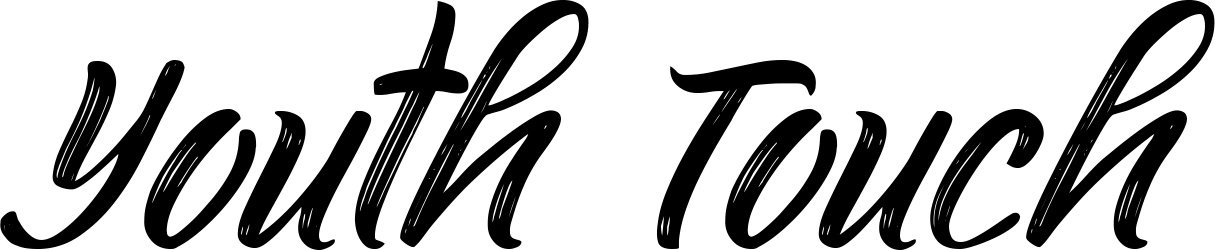
Youth Touch Font
Are you looking for a marker font for your typography designs? If so, you better take a look at Youth Touch right now. This font with long letters gives an energetic vibe. Apply it to your music or dance posters, invitat…
Are you looking for a marker font for your typography designs? If so, you better take a look at Youth Touch right now. This font with long letters gives an energetic vibe. Apply it to your music or dance posters, invitations, and so on. What are you waiting for? Grab it as soon as possible and see how amazing it sounds!